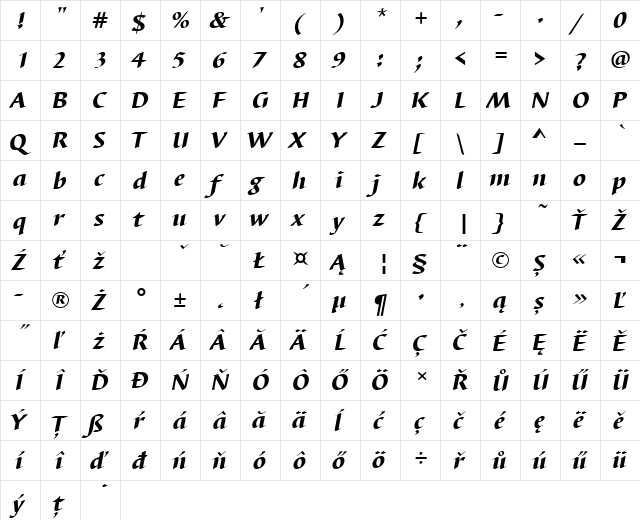
BarbedorTEEHea Italic Font Preview
BarbedorTEEHea Italic
BarbedorTEEHea Italic Font Details
Design Context for BarbedorTEEHea Typeface
BarbedorTEEHea is a composed and adaptable typeface that performs quietly and consistently across a wide range of design contexts. The slanted form adds forward momentum and visual energy.